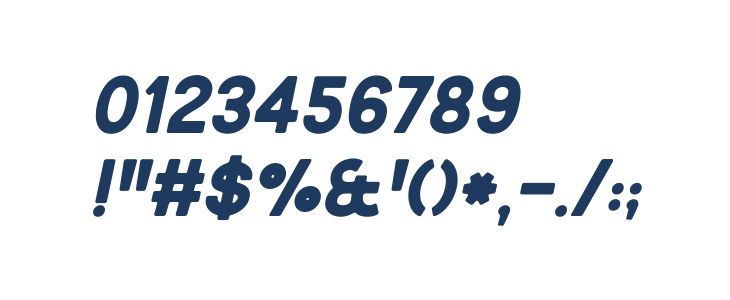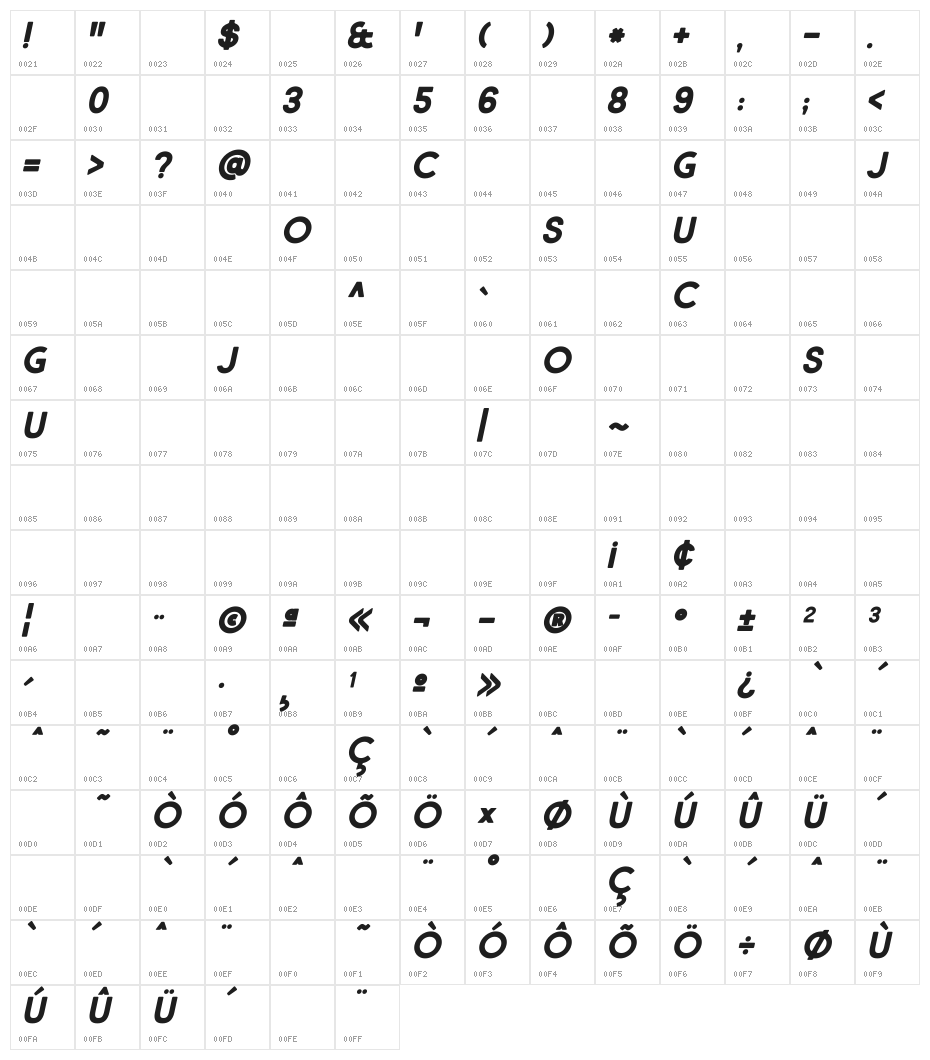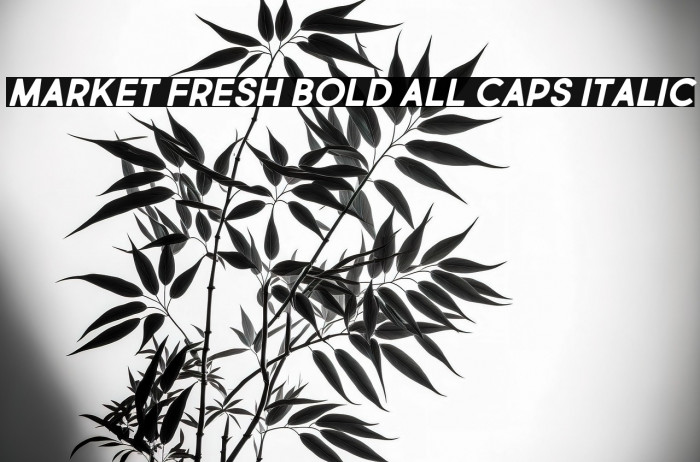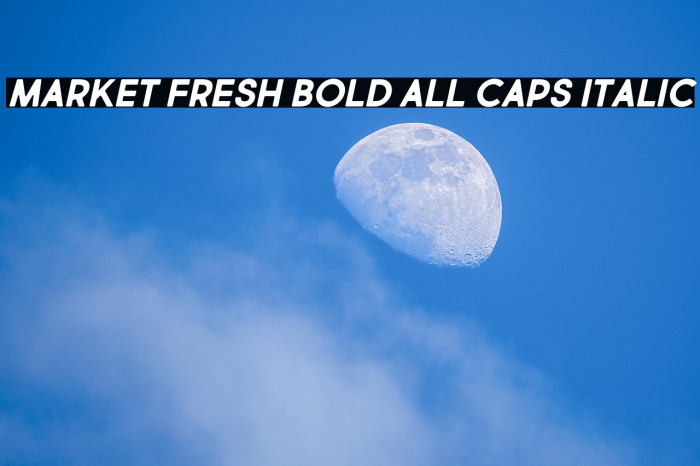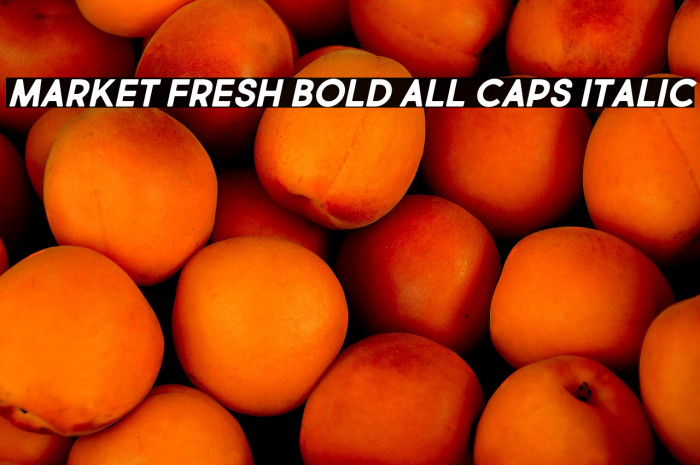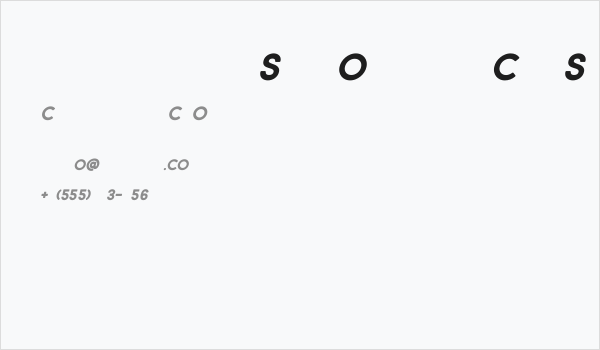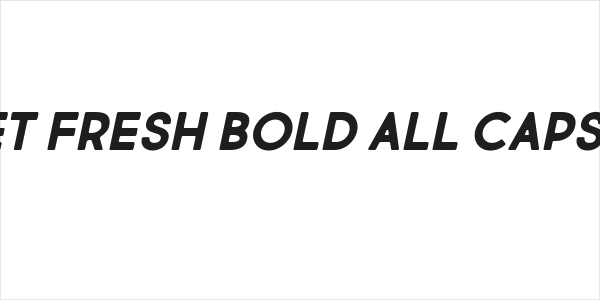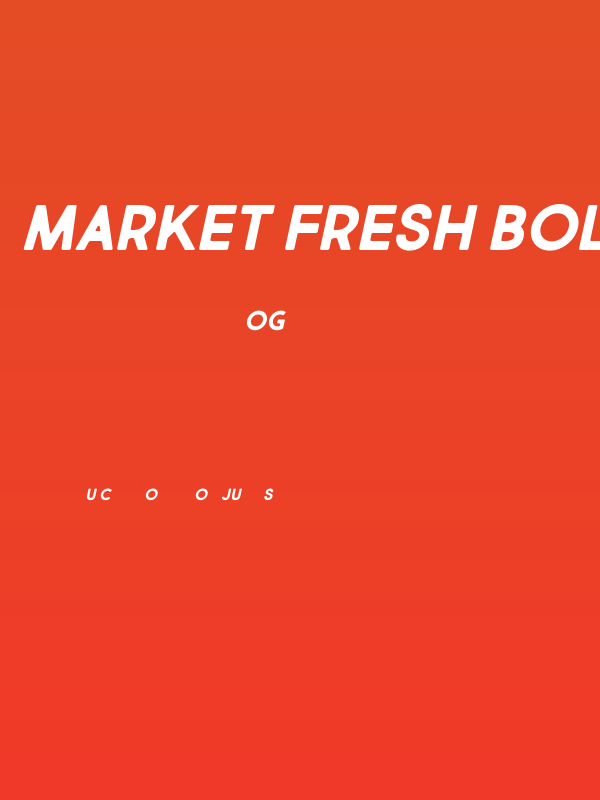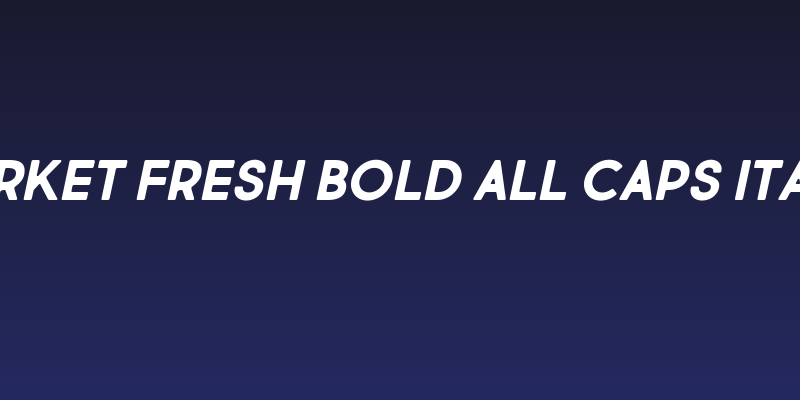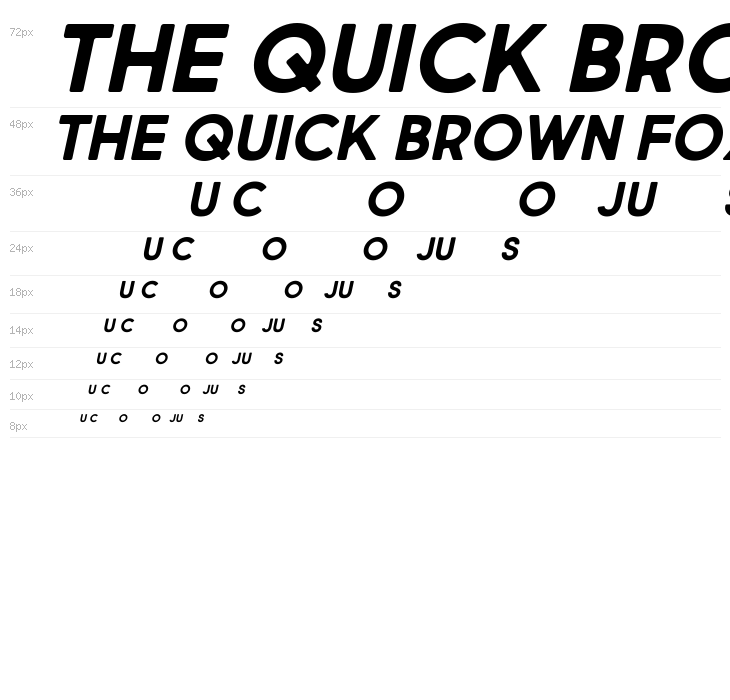
Market Fresh Bold All Caps Italic Font
Market Fresh Bold All Caps Italic Description
This font features a bold and italicized style, characterized by its strong and dynamic presence. The uppercase letters are designed with a slight forward slant, adding a sense of motion and urgency. The characters are well-defined with a consistent stroke weight, making them highly legible. The numbers and special characters maintain the same boldness and slant, ensuring uniformity across all elements. This font is ideal for creating impactful headlines and titles, where attention-grabbing and readability are crucial. Its modern and assertive style makes it suitable for branding and advertising projects.
| Proposed Projects | Ideal for branding, advertising, headlines, and titles. |